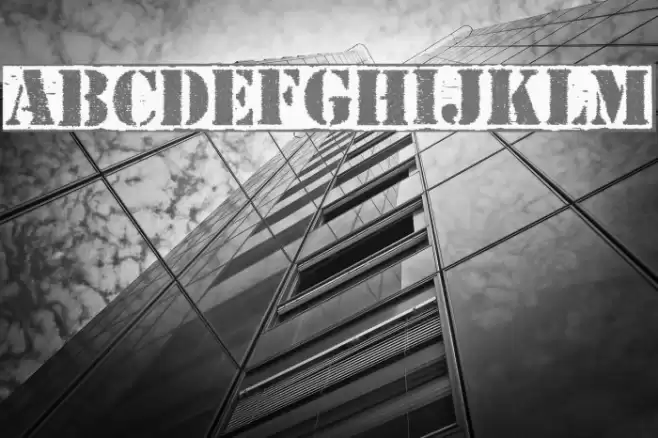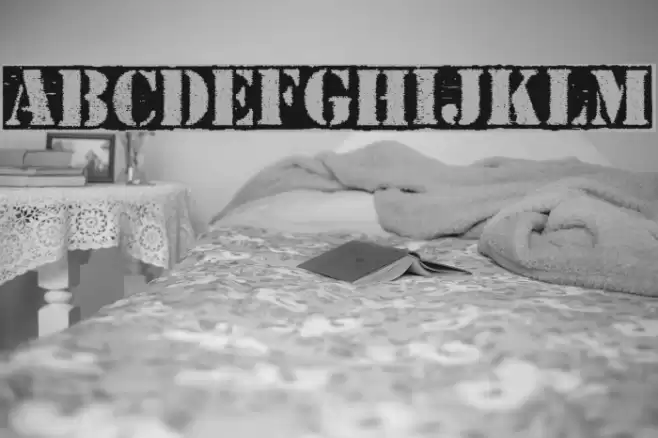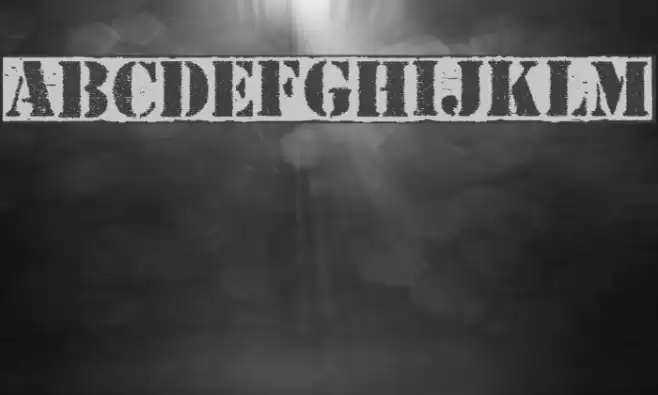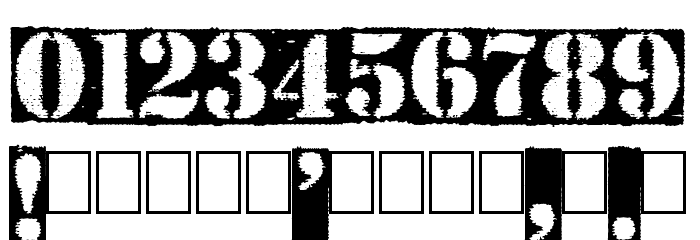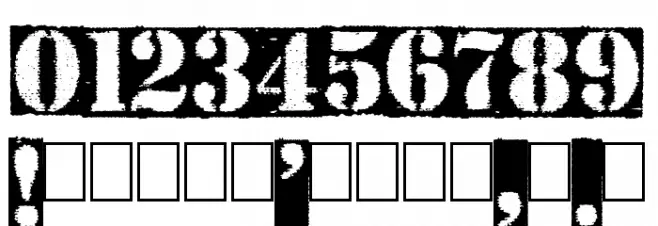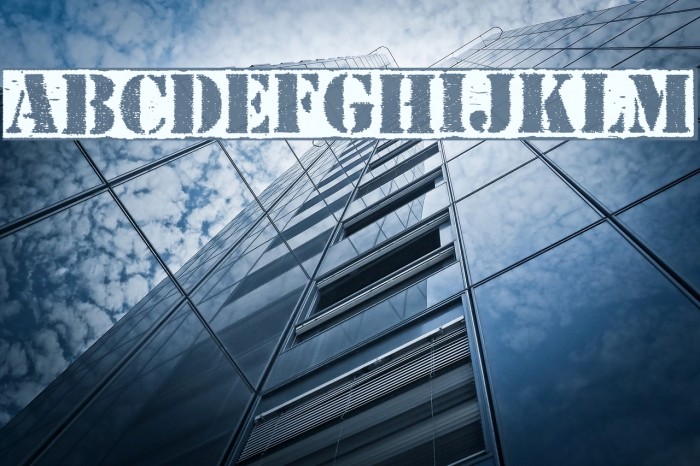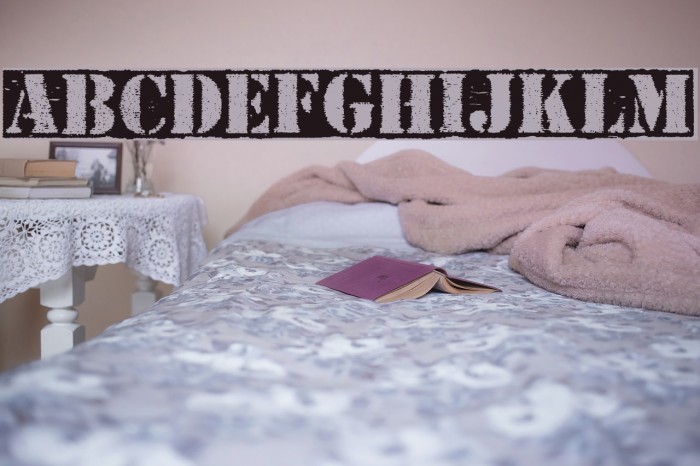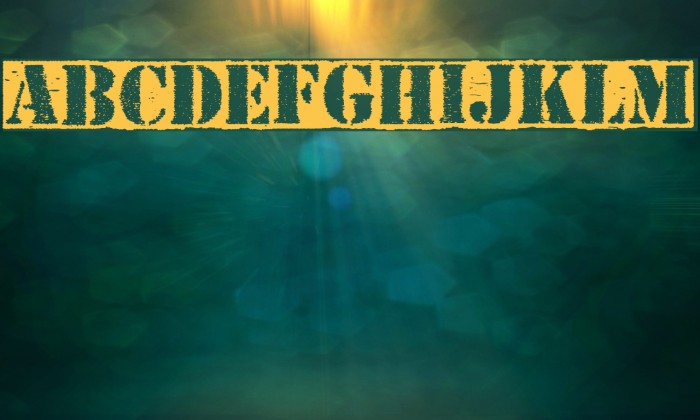
Carton Font
Carton Description
This font features a bold, distressed style with a stencil-like appearance, giving it a rugged and industrial feel. The uppercase letters are prominent, with thick strokes and a weathered texture that suggests a vintage or grunge aesthetic. The numbers and special characters maintain this distressed look, providing a cohesive design throughout. The font's unique texture makes it stand out, ideal for projects that require a strong, impactful visual presence. Its boldness and distinctive style make it suitable for attention-grabbing headlines or titles.
A bold, distressed stencil-style font with a rugged, industrial look from Uncategorized fonts.
- Proposed Projects: Ideal for posters, album covers, branding for industrial or vintage-themed products, and any design needing a bold, gritty aesthetic.
- Overall Style: Vintage